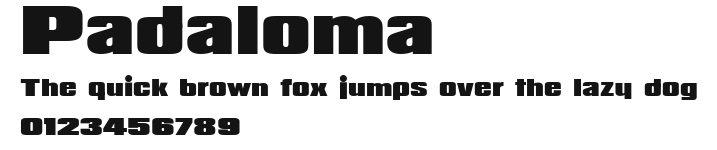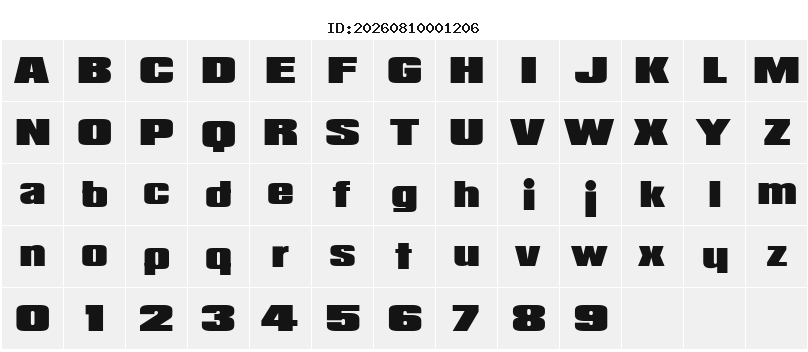
• Font Name: Padaloma
• Full Font Name: Padaloma
About Padaloma.ttf
Padaloma.ttf is a modern, elegant sans-serif font designed for ultimate readability and visual harmony. Perfect for branding, headlines, web design, and print materials.